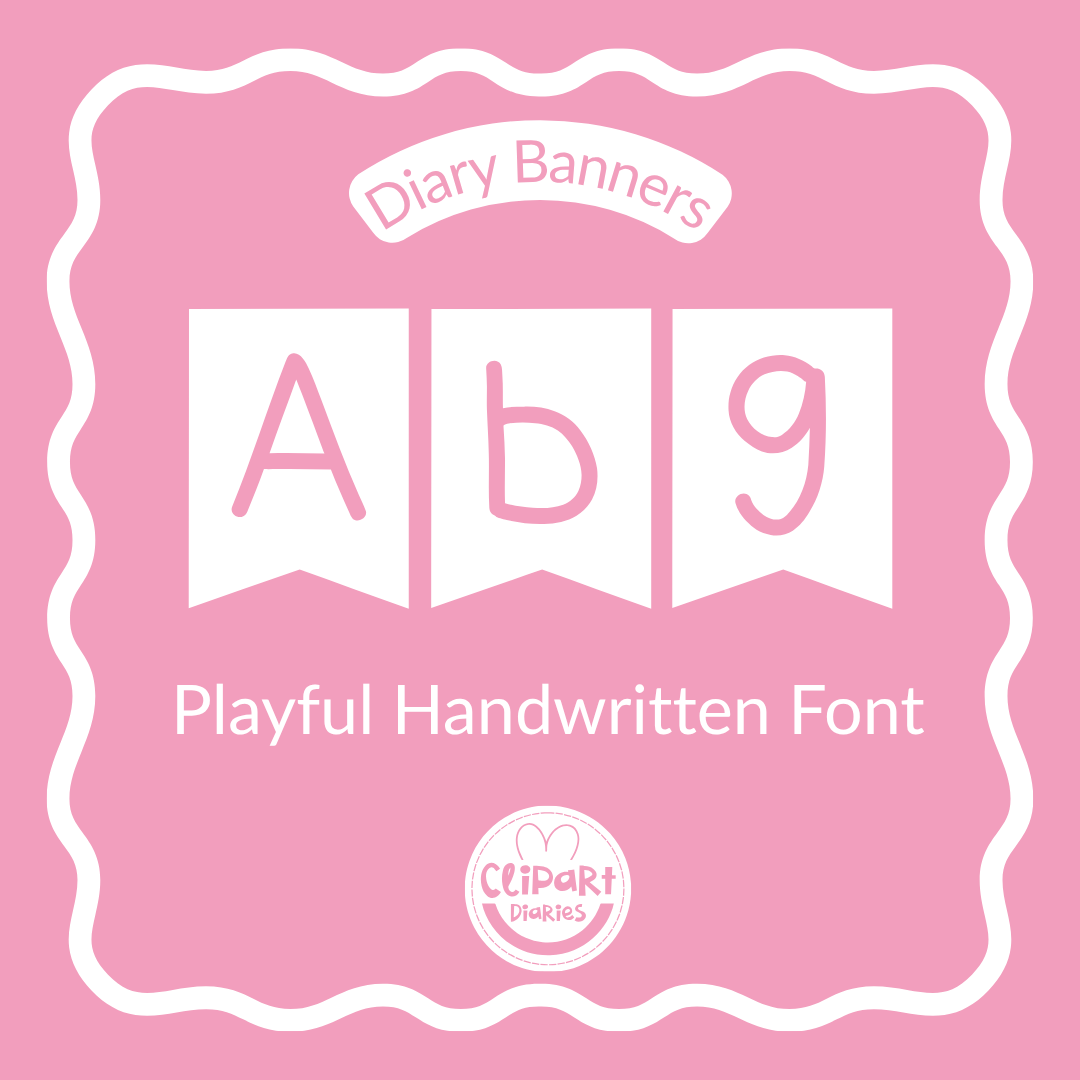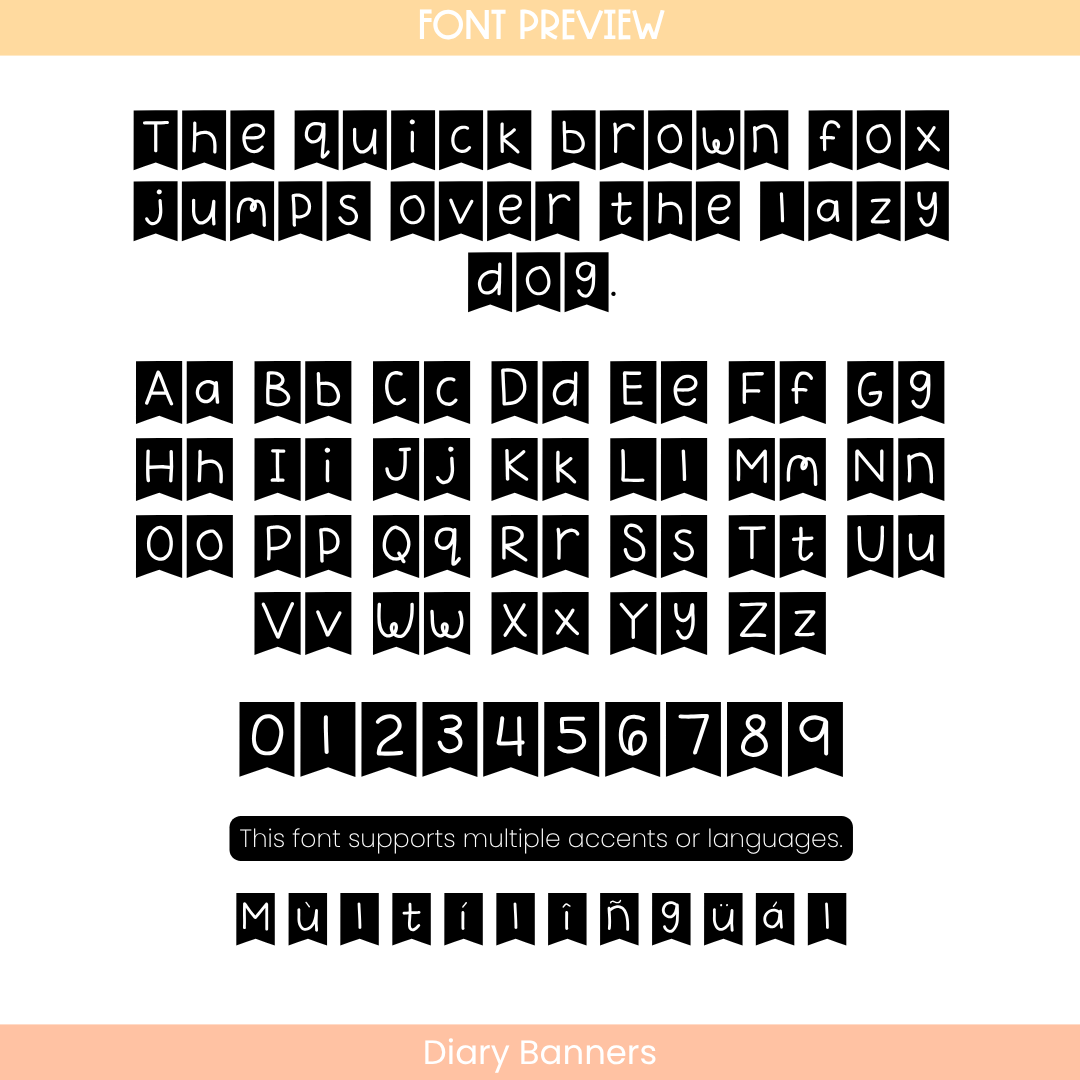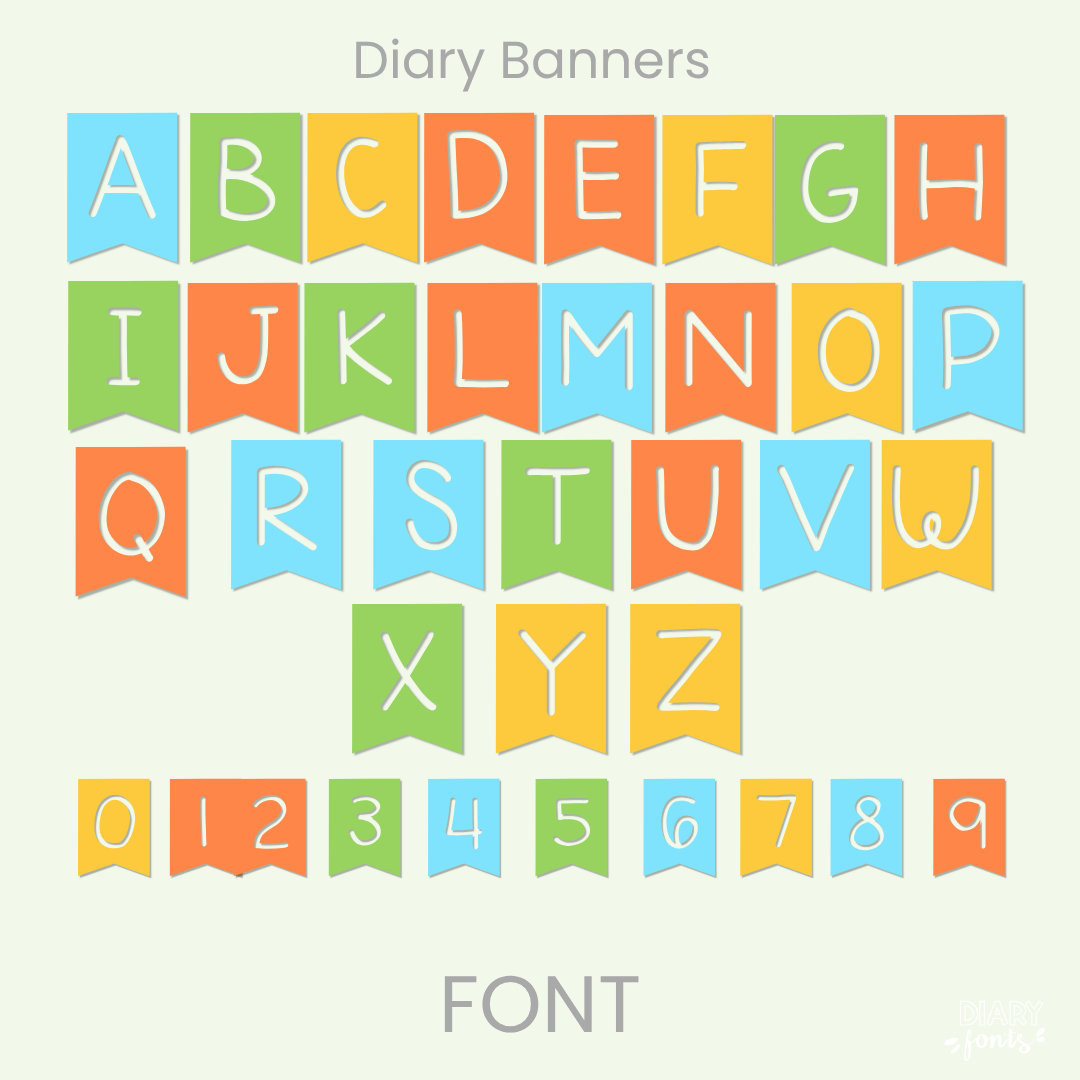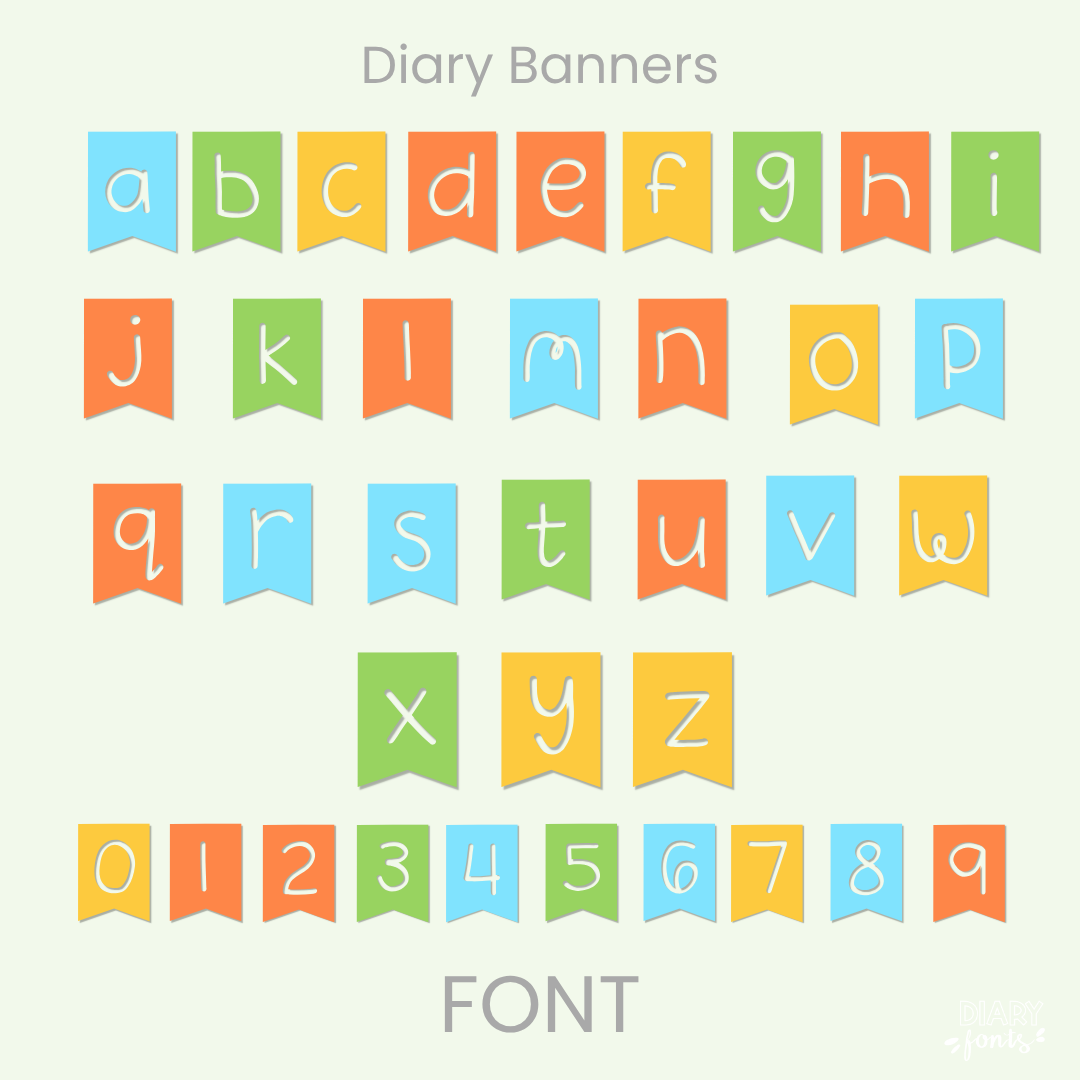
Infuse your creative projects with personality using Diary Banners, a playful handwritten font that combines a fun, whimsical aesthetic with professional legibility. This comprehensive typeface includes a full set of uppercase and lowercase letters, numbers 0–9, and multi-language support for various accents. It is engineered for seamless compatibility with major software like MS Office and Adobe Apps, as well as popular iPad tools like GoodNotes and Procreate. Whether you are designing festive classroom banners, worksheets, or digital planners, Diary Banners offers a polished, hand-drawn look perfect for both personal and commercial use.